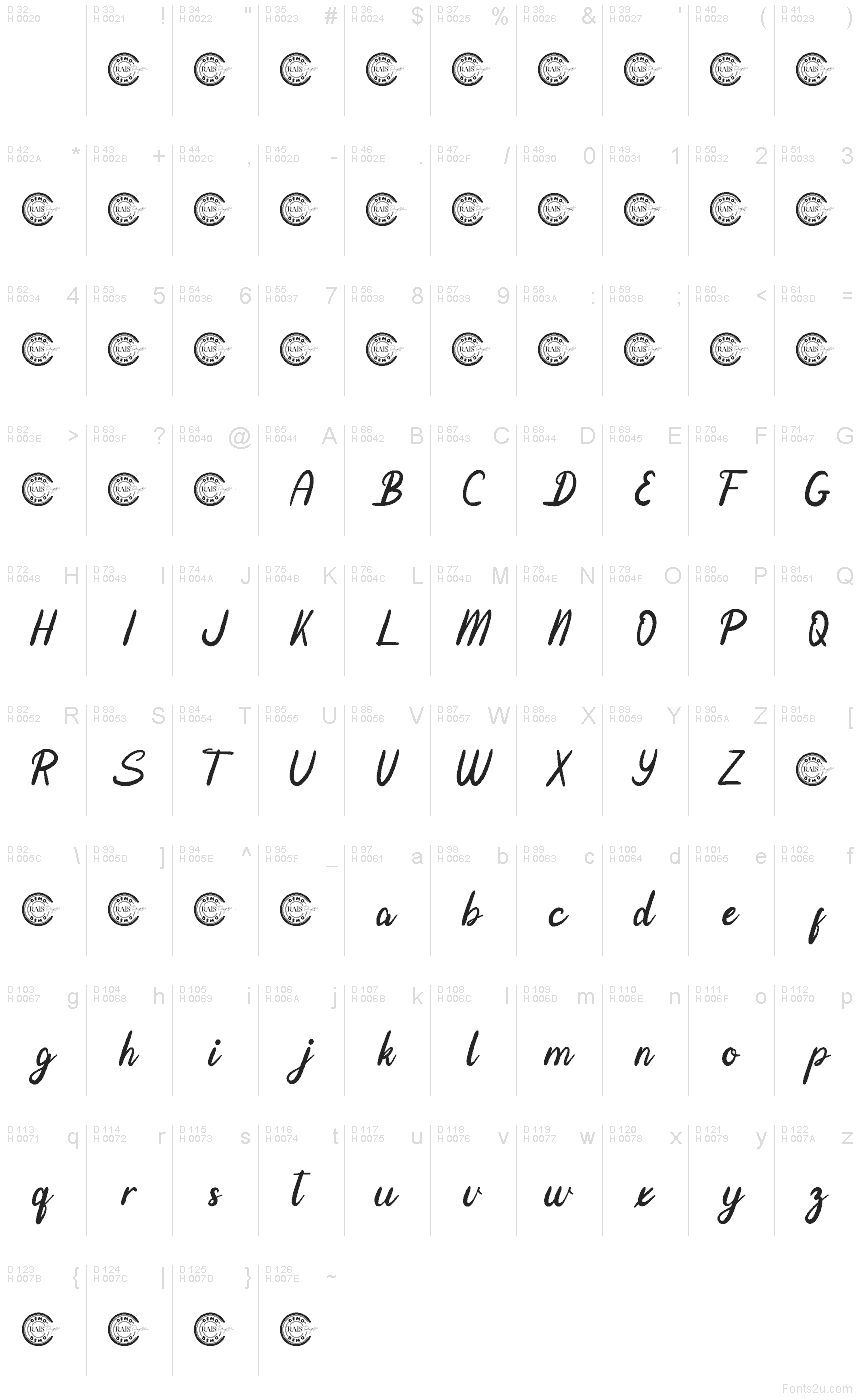
Fair Enough Demo
Fair Enough font, designed by RaisProject, is a handwritten font with an elegant appearance and a smooth flow. Its caligraphic style exudes classic inspiration with freeform serif characteristics that make it visually appealing and versatile.
A suitable choice for invitations or personal branding, this beautiful free font can work perfectly for posters, wedding designs, logos, packaging designs, social media templates, mugs or T-shirts print designs. Use Fair Enough also in watermarks to add glamor and a touch of elegance.